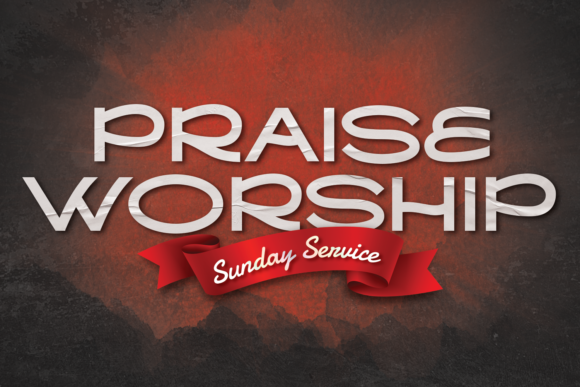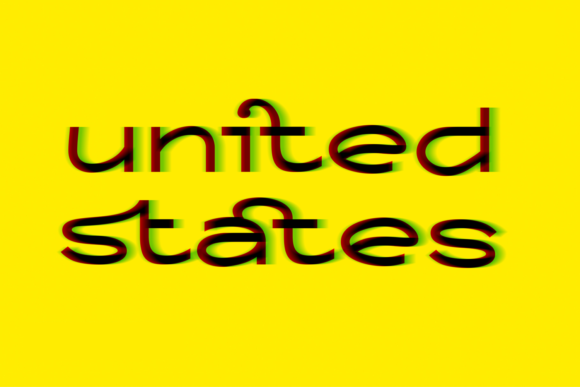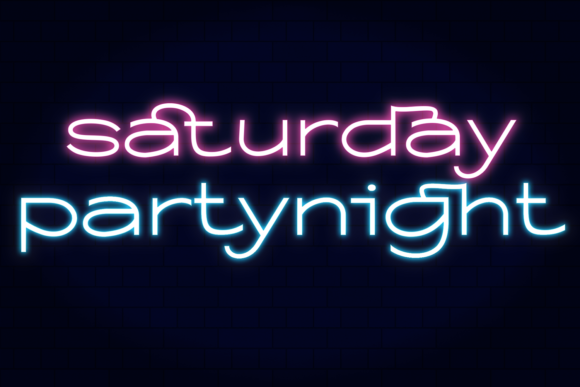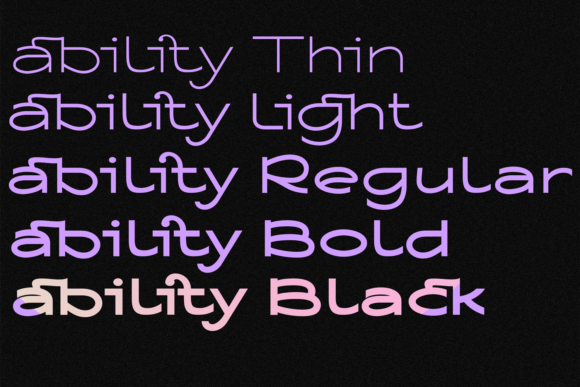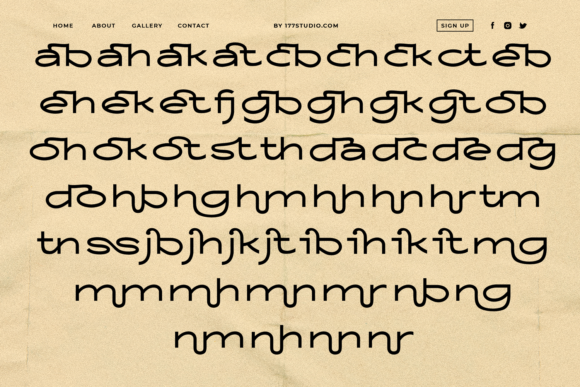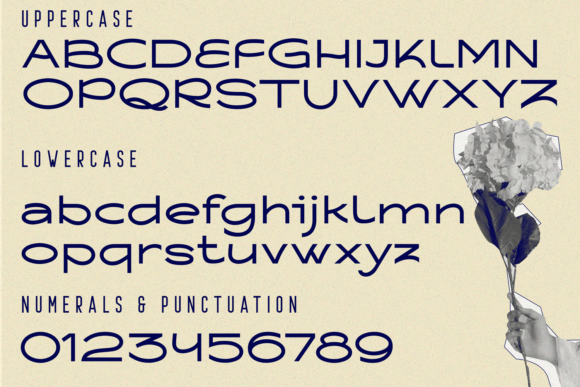
Introducing Ability Checks Font: Elevate Your Designs with a Cool and Modern Display Font
In the world of design, fonts play a crucial role in conveying the message and aesthetic of a project. Whether you’re working on a website, business card, or any other visual material, the right font can make all the difference. If you’re on the hunt for a cool and modern looking display font that adds a unique touch to your designs, look no further than Ability Checks Font. In this article, we’ll dive deep into what makes Ability Checks a standout choice for designers and crafters alike.
What is Ability Checks Font?
Ability Checks Font is a stylish and contemporary display font that has been gaining popularity among designers and crafters. Its unique design elements make it perfect for a wide range of applications, from web designs and business cards to posters, flyers, and more. The font’s modern look and feel can instantly elevate your projects, giving them a professional and eye-catching appearance.
Key Features of Ability Checks Font
- Unique and Modern Design: Ability Checks boasts a distinctive design that sets it apart from more traditional fonts. Its modern aesthetic makes it ideal for designers looking to add a fresh and contemporary feel to their work.
- PUA Encoded: One of the standout features of Ability Checks Font is that it is PUA (Private Use Area) encoded. This means that the font includes a wide range of glyphs and swashes that can be easily accessed. PUA encoding allows for greater flexibility and creativity in your designs, enabling you to experiment with different styles and variations.
- Versatility: Whether you’re working on a web design project, creating business cards, or crafting promotional materials, Ability Checks Font is incredibly versatile. Its adaptability makes it a valuable addition to any designer’s font library.
- Easy to Use: Despite its sophisticated design, Ability Checks Font is easy to use, even for those who are new to font design and typography. The intuitive encoding ensures that you can quickly access and apply the various glyphs and swashes to your projects.
Applications of Ability Checks Font
The applications of Ability Checks Font are vast and varied. Here are a few examples of how you can use this versatile font:
- Web Design: Use Ability Checks Font to create stunning website headers, buttons, and other UI elements. Its modern look and feel can help make your website stand out and provide a memorable user experience.
- Business Cards: Add a touch of sophistication and professionalism to your business cards with Ability Checks Font. Its unique design ensures that your business cards will be noticed and remembered.
- Print Materials: From posters and flyers to brochures and magazines, Ability Checks Font can be used to create eye-catching headings and titles that capture the reader’s attention.
- Crafting and DIY Projects: If you’re a crafter or enjoy DIY projects, Ability Checks Font can be used to add a personal and creative touch to your work. Use it for journaling, scrapbooking, and other craft projects.
Tips for Using Ability Checks Font
To get the most out of Ability Checks Font, here are a few tips:
- Experiment with Different Sizes: Ability Checks Font looks great in various sizes. Experiment with different sizes to find the perfect balance for your project.
- Mix and Match Glyphs: Take advantage of the PUA encoding by mixing and matching different glyphs and swashes. This can add depth and interest to your designs.
- Pair with Complementary Fonts: For body text, pair Ability Checks Font with a clean and simple font to create contrast and make your content more readable.
Ability Checks Font is a cool and modern looking display font that can elevate your designs with its unique touch. Its PUA encoding, versatility, and ease of use make it an excellent choice for designers and crafters. Whether you’re working on web designs, business cards, or any other project that requires a standout font, Ability Checks is sure to impress. Add it to your font library today and discover the difference it can make in your designs.